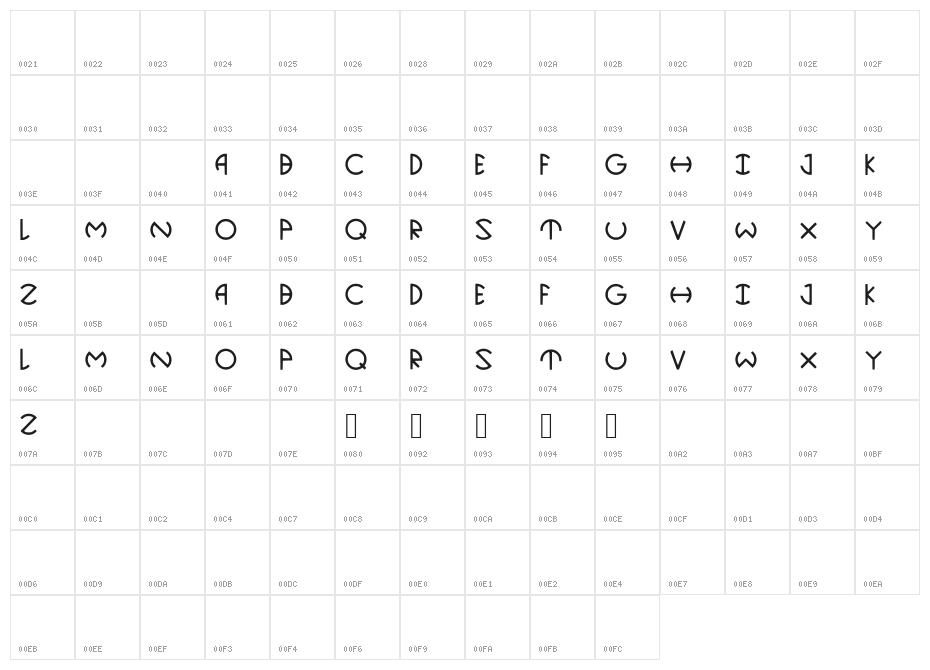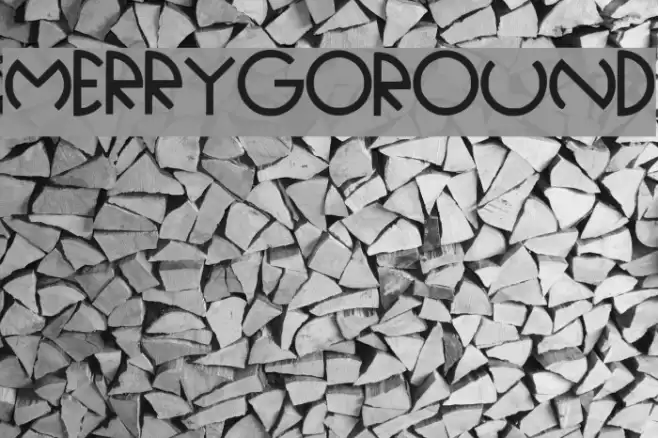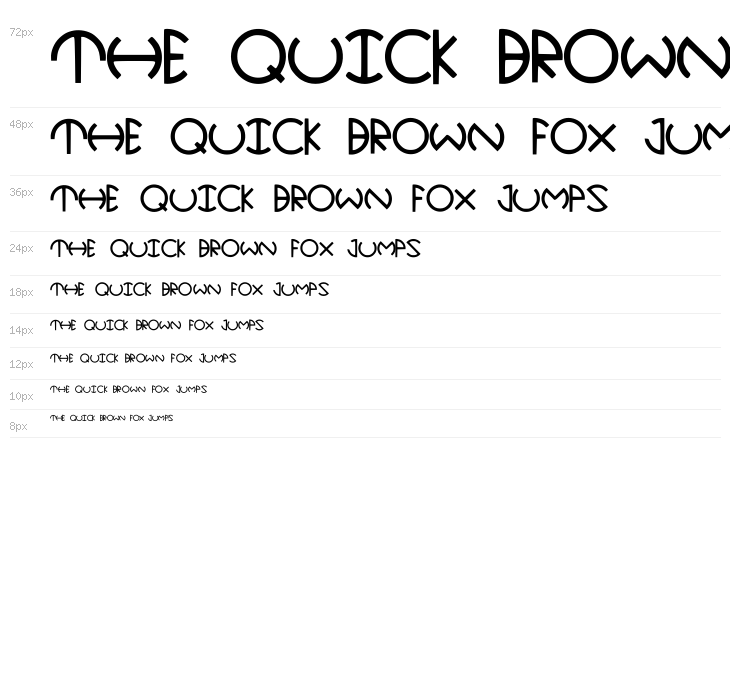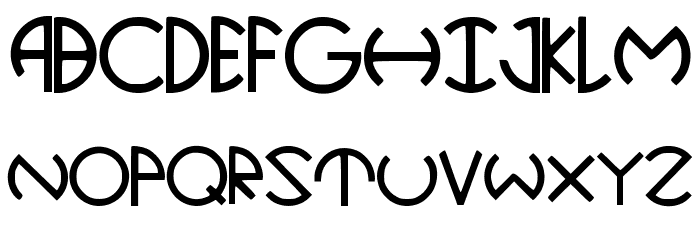
Merry_Go_Round Font
Merry_Go_Round Description
This font features a playful and whimsical design, characterized by its unique geometric shapes and rounded edges. The letters are bold and have a distinct, almost circular form that gives them a lively and dynamic appearance. The uppercase and lowercase letters maintain a consistent style, with the uppercase letters exhibiting a slightly more pronounced curvature. The font's overall aesthetic is reminiscent of a carnival or amusement park, evoking a sense of fun and nostalgia. Its bold strokes and creative design make it stand out, while the consistent spacing ensures readability.
| Use Case | Logos, Posters, Branding |
| Proposed Projects | Ideal for children's books, amusement park branding, playful posters, and creative logos. |